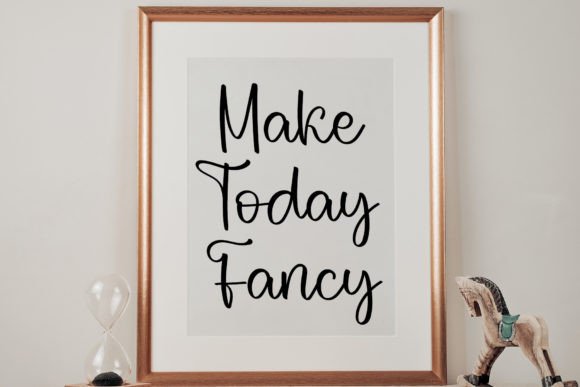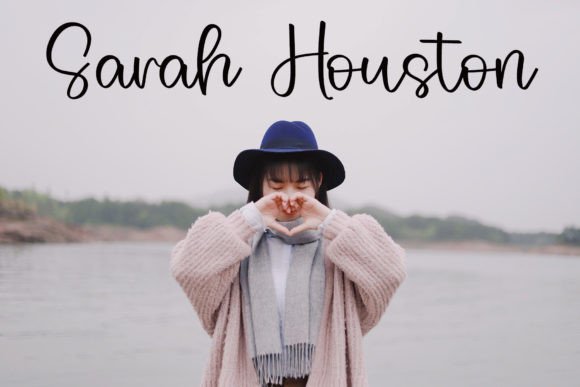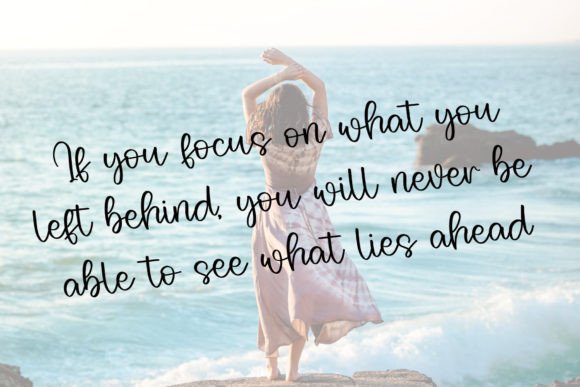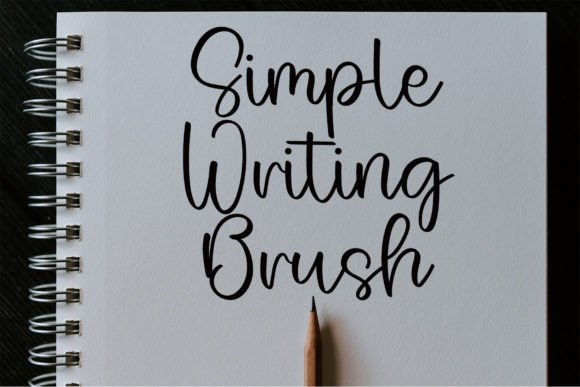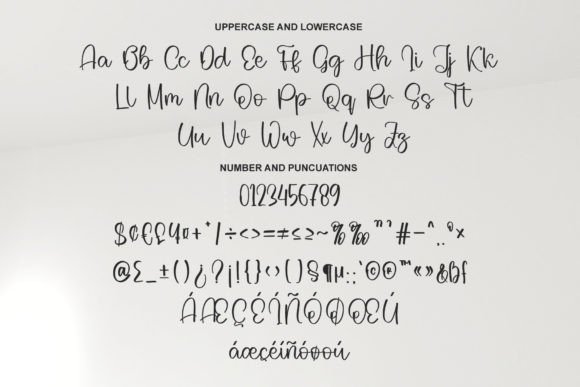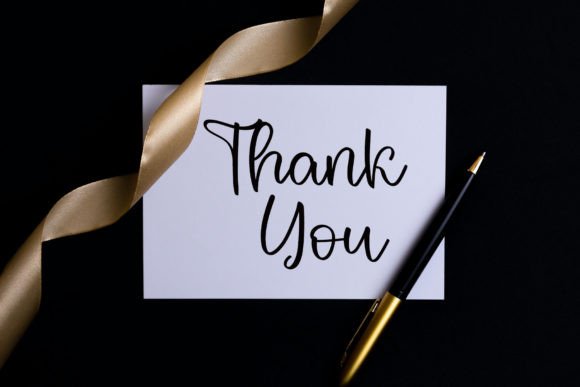
Unlocking the Power of Brilliant Font
Have you ever stared at a blank canvas, trying to bring your creative vision to life? The blank page can be intimidating, but what if you had the perfect tool to spark your imagination? For designers, finding the right font can be the key to unlocking a masterpiece.
Introducing Brilliant Font, a stylish handwritten and script font that brings together elegance and creativity in perfect harmony. With its fluid strokes and impeccable curves, Brilliant Font adds a touch of class to any design project, making it truly extraordinary and visually stunning. Whether you’re working on a high-end brand or a personal project, Brilliant Font is the perfect companion to help you create something truly brilliant.
Key Features of Brilliant Font
- Font Family: Brilliant Font offers a diverse range of font styles, including serif, sans-serif, script, and display fonts.
- Character Set: The font includes a comprehensive set of characters, including Latin, Cyrillic, Greek, and Devanagari scripts, covering over 100 languages.
- Resolution: Optimized for high-resolution displays (up to 300 DPI), ensuring crisp and clear typography even at large font sizes.
- Size: The font is available in multiple weights, ranging from light to extra bold, allowing for flexibility in design and layout.
- Unique Characteristics: Brilliant Font features a unique blend of modern and classic design elements, with subtle nuances and details that enhance readability and aesthetic appeal.
Brilliant Font Review
Overall, I was excited to dive into the Brilliant Font and see what it had to offer. Here are my honest thoughts on this font.
- The Brilliant Font has a unique, modern aesthetic that makes it perfect for digital designs.
- The font is highly customizable, allowing users to adjust the weight, spacing, and even the color of the text.
- The font is also highly legible, even at small sizes, making it a great choice for web and mobile designs.
- The Brilliant Font can be quite bold, which may not be suitable for all designs, especially those requiring a more subtle look.
- The font may not be the best choice for print designs, as it can be difficult to read at small sizes.
- The font’s unique aesthetic may not appeal to everyone, and some users may find it too flashy or overwhelming.
The Brilliant Font is a solid choice for digital designs, offering a unique and modern aesthetic that’s highly customizable. While it may have some limitations, it’s definitely worth considering for projects where a bold, eye-catching font is needed.
Practical Application Guide for Brilliant Font
The Brilliant Font is ideal for:
– Creating eye-catching headings and titles.
– Adding a touch of sophistication to your designs.
– Highlighting important information or calls-to-action.
Getting the Most Out of Brilliant Font
For optimal results, use the Brilliant Font in combination with other design elements, such as bold colors and clean layouts. Experiment with different font sizes and styles to create visual interest and emphasis.
Alternatives to Brilliant Font for Designers
Great Vibes is a beautiful, modern script font ideal for creative projects, branding, and packaging. It’s perfect for designers who want to add a touch of elegance and sophistication to their designs. Unlike Brilliant Font, Great Vibes has a more refined and polished look, making it suitable for high-end projects.
Cinzel
Cinzel is a elegant and sophisticated font that combines ancient and modern elements. It’s ideal for designers who want to create a sense of history and tradition in their designs. Compared to Brilliant Font, Cinzel has a more classic and timeless feel, making it suitable for projects that require a sense of authority and credibility.
Playfair Display is a luxurious and elegant font perfect for designers who want to create a sense of opulence and sophistication. It’s ideal for high-end branding, packaging, and advertising projects. Unlike Brilliant Font, Playfair Display has a more dramatic and attention-grabbing look, making it suitable for projects that require a sense of grandeur.
Q: Can I customize the Brilliant Font to fit my specific design needs?
Yes, the Brilliant Font is highly customizable. You can adjust the font’s weight, style, and spacing to fit your design requirements. Additionally, you can use font editing software like FontForge or FontLab to modify the font’s metrics and create custom variants. However, be sure to check the font’s licensing terms and conditions before making any modifications.